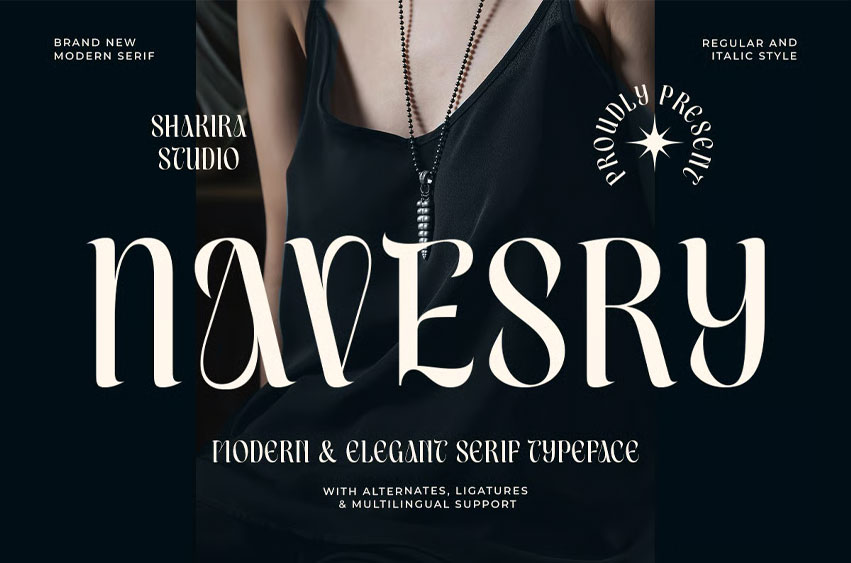
Navesry Font
Navesry Font is a bold yet refined modern serif font with luxury detailing and premium ligatures. Crafted to balance elegance and uniqueness, this typeface is ideal for premium branding, fashion logos, wedding stationery, and editorial layouts.
Its sophisticated alternates bring a versatile charm, making Navesry the go-to serif for designers aiming to create timeless and upscale visuals.
• Modern, elegant serif typeface
• Alternates & stylish ligatures
• Regular & italic versions
• Premium branding & logo design
• Editorial & magazine layouts
• Packaging design
• Wedding invitations & stationery
• Fashion campaigns & photography
• Social media templates
A striking serif that blends modern aesthetics with timeless elegance.